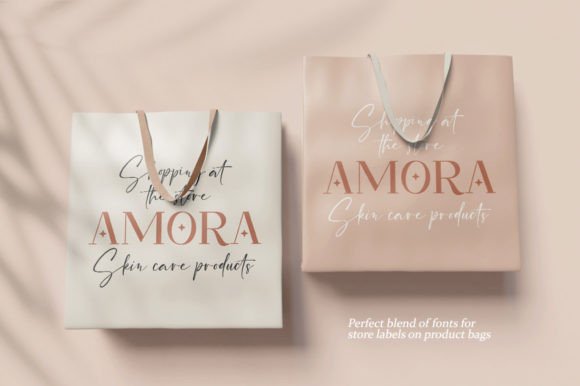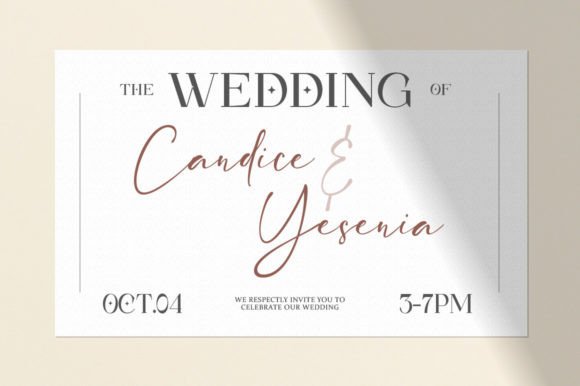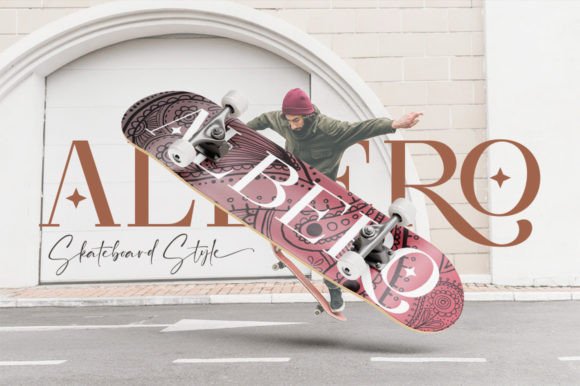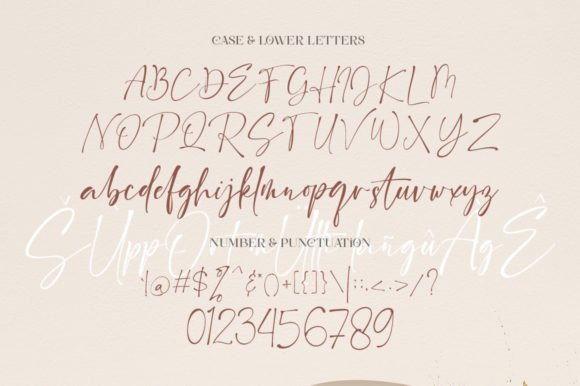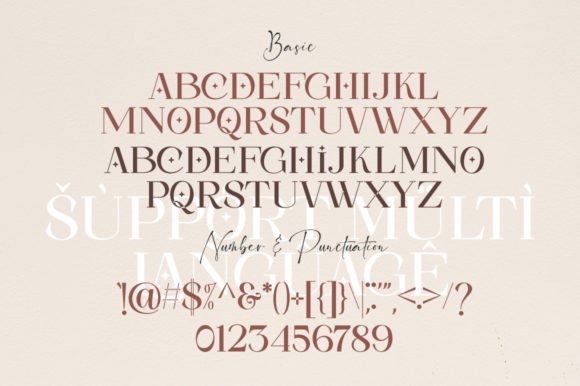
Introducing Hello Bonia Font: Elevate Your Designs with Modern Elegance
In the world of typography, fonts play a crucial role in conveying the tone and personality of a brand or design. For designers and crafters seeking a modern and stylish edge, Hello Bonia Font is an exceptional choice. This font duo, consisting of serif and script styles, is characterized by smooth curves that exude elegance and sophistication. In this article, we’ll explore the features and benefits of Hello Bonia Font, and how it can elevate your fashion branding or editorial designs.
The Hello Bonia Font Duo: A Perfect Harmony of Serif and Script
Hello Bonia Font is a thoughtfully crafted font duo that pairs a serif font with a beautiful script font. The serif font boasts clean lines, refined details, and a classic feel, while the script font adds a touch of elegance and fluidity. This harmonious combination allows designers to create stunning visual content that resonates with their audience. Whether you’re working on a fashion brand, editorial design, or any project requiring a sophisticated look, Hello Bonia Font is an excellent choice.
Key Features of Hello Bonia Font
- Smooth Curves: The defining feature of Hello Bonia Font is its smooth, flowing curves that give it a modern and stylish appearance.
- Versatility: This font duo is incredibly versatile, making it suitable for a wide range of design applications, from fashion branding to editorial designs.
- Elegance and Sophistication: Hello Bonia Font exudes elegance and sophistication, making it perfect for designs that require a high-end feel.
- Easy to Read: The serif font is highly legible, ensuring that your message is conveyed clearly and effectively.
- Customizable: With a range of weights and styles, Hello Bonia Font offers endless possibilities for customization to suit your design needs.
Applications of Hello Bonia Font
Hello Bonia Font’s versatility makes it an excellent choice for various design applications. Here are a few examples:
- Fashion Branding: Create stunning fashion logos, labels, and marketing materials that reflect your brand’s style and sophistication.
- Editorial Designs: Use Hello Bonia Font to add a touch of elegance to your editorial designs, such as magazines, newspapers, and blogs.
- Advertising: Make your advertisements stand out with this beautiful font duo that grabs attention and communicates your message effectively.
- Packaging: Elevate your product packaging with Hello Bonia Font, adding a luxurious feel to your brand’s products.
Tips for Using Hello Bonia Font
To get the most out of Hello Bonia Font, consider the following tips:
- Mix and Match: Experiment with different weights and styles to create visual interest and hierarchy in your designs.
- Pair with Images: Combine Hello Bonia Font with high-quality images to create stunning visual content that tells a story.
- Keep it Simple: Don’t overcomplicate your design – let the beauty of Hello Bonia Font shine through by keeping your layout clean and simple.
Hello Bonia Font is a modern and stylish font duo that offers designers and crafters a world of creative possibilities. With its smooth curves, versatility, and elegance, this font duo is perfect for fashion branding, editorial designs, and more. By incorporating Hello Bonia Font into your designs, you’ll add a touch of sophistication and luxury that will elevate your brand and captivate your audience. So why wait? Explore the endless possibilities of Hello Bonia Font and take your designs to the next level.